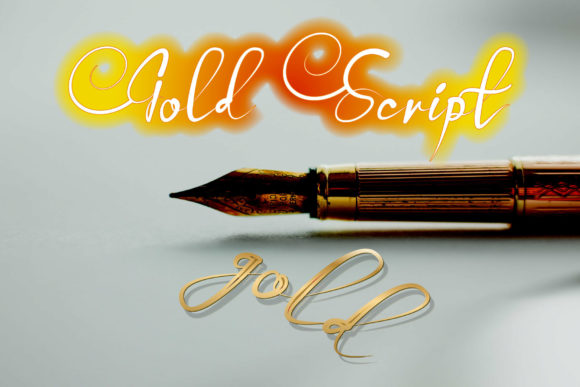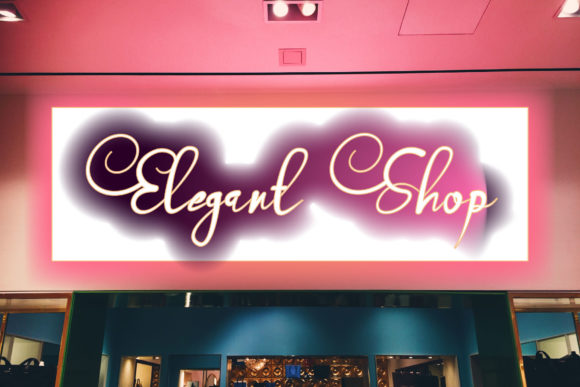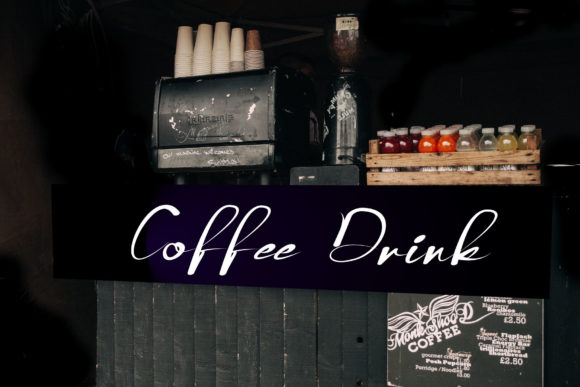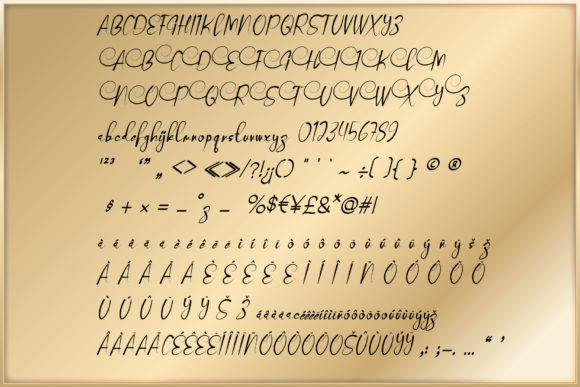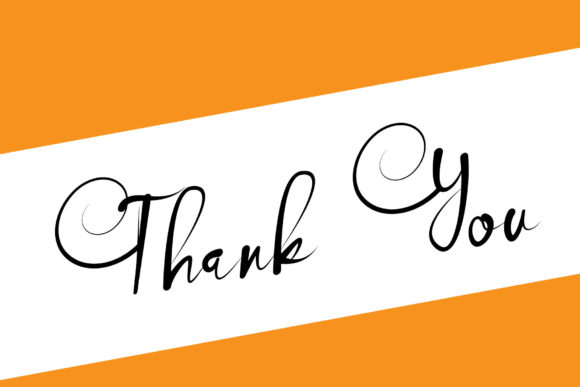
The Golden Touch: Elevating Your Designs with the Stunning Gold Font
I’ll never forget the time I was working on a wedding invitation project, and my client asked for a font that exuded luxury, sophistication, and romance. I scoured the internet, tried out countless fonts, but nothing seemed to fit the bill. That was until I stumbled upon the breathtaking Gold Font. ✨ Its elegant, modern, and refined script style instantly captured the essence of the occasion, and I knew I had found the perfect match. In this article, I’ll share my love for Gold Font, its features, and how to make the most of it in your designs.
A Personal Review: What I Love About Gold Font
Gold Font has quickly become one of my go-to fonts for various design projects. Here’s what I love about it:
- ✨ Elegant and refined script style: Gold Font boasts a beautiful, flowing script style that’s perfect for creating luxurious and sophisticated designs.
- ✅ PUA encoded for easy access: The font is PUA encoded, making it easy to access all the glyphs and swashes, even for those without extensive font knowledge.
- ✅ Classy and modern look: Gold Font’s modern design ensures it will complement a wide range of styles, from classic to contemporary.
- ✅ Versatile: This font is perfect for various design projects, including logos, branding, invitations, stationery, wedding designs, social media posts, and more!
While Gold Font is an exceptional font, there are a few minor quirks to be aware of:
- ⚠️ Glyph access: While PUA encoding makes it easier to access glyphs, some users might still find it challenging to navigate the character map.
- 🤔 Pairing with other fonts: As with any script font, pairing Gold Font with other fonts can be tricky. Be sure to experiment with different combinations to find the perfect match.
The Designer Inspiration Behind Gold Font
While the true story behind Gold Font’s creation is unknown, it’s easy to imagine that the designer was inspired by the luxury and sophistication of gold. Perhaps they wanted to create a font that would make designers feel like they were adding a touch of elegance to their work. Whatever the inspiration, Gold Font has undoubtedly become a favorite among designers and crafters alike.
Q: What is PUA encoding, and how does it benefit Gold Font?
PUA (Private Use Area) encoding allows font creators to include additional characters, such as glyphs and swashes, that aren’t part of the standard Unicode character set. This means that Gold Font users can easily access these extra features to enhance their designs.
Q: How do I pair Gold Font with other fonts?
Pairing Gold Font with other fonts can be a bit tricky, but here are some general tips: try pairing it with clean sans-serif fonts for contrast, or with other script fonts for a more elegant look. Experiment with different combinations to find the perfect match for your design.